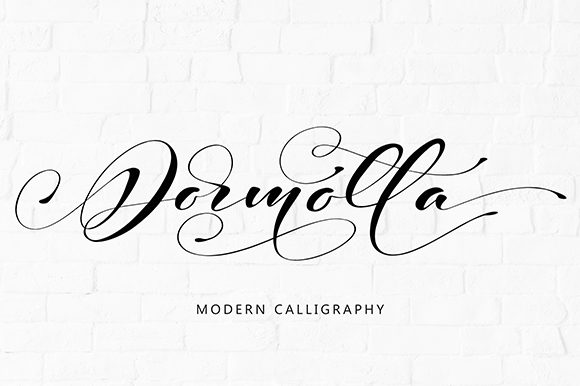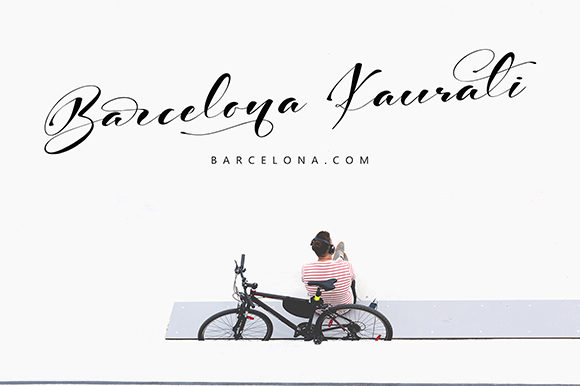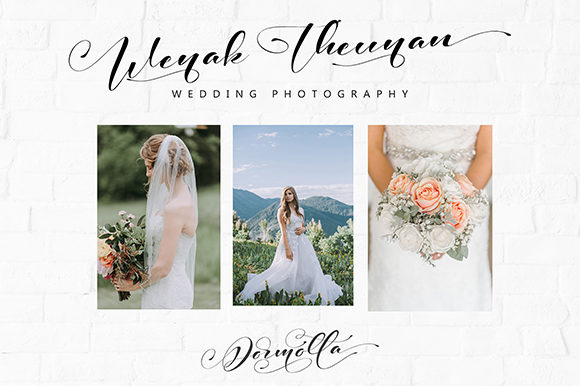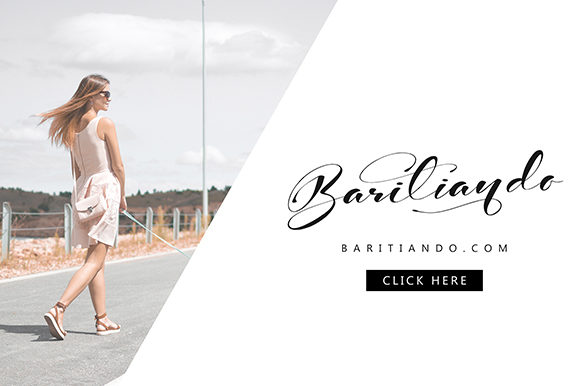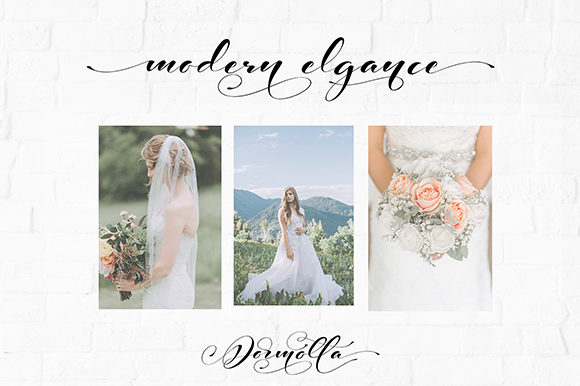
Dormotta Font
About Dormotta Font
Dormotta is a bold and beautiful handwritten font with a luxurious feel. It will add a unique spark to any design project.